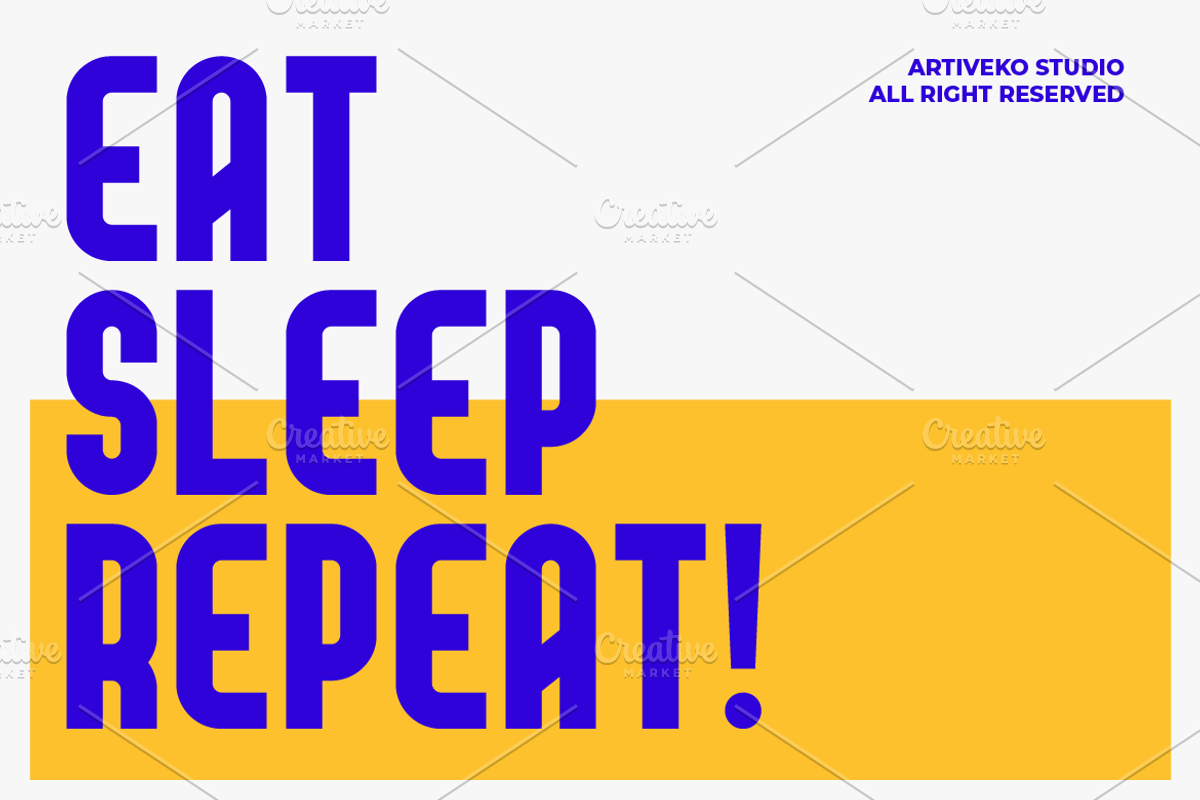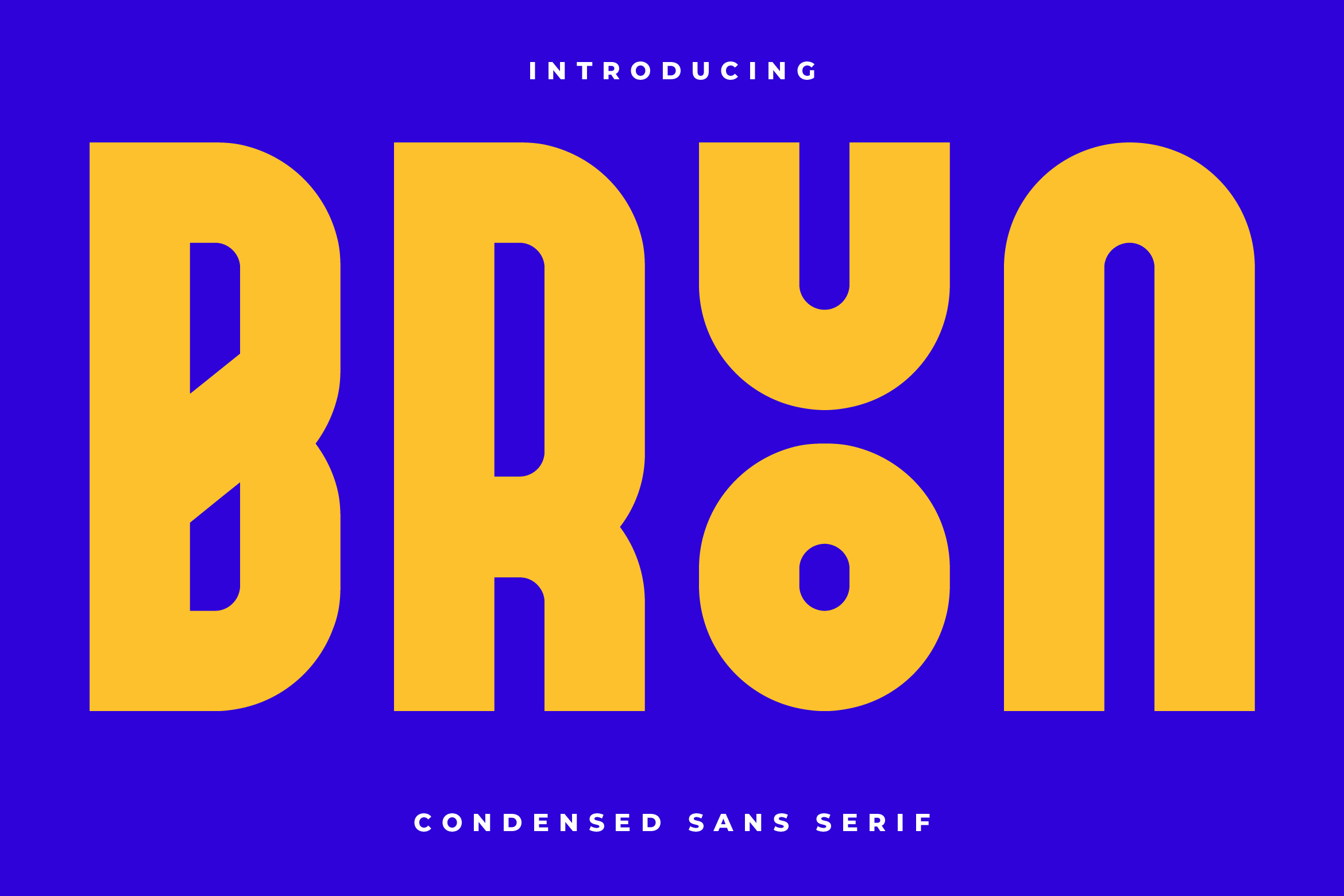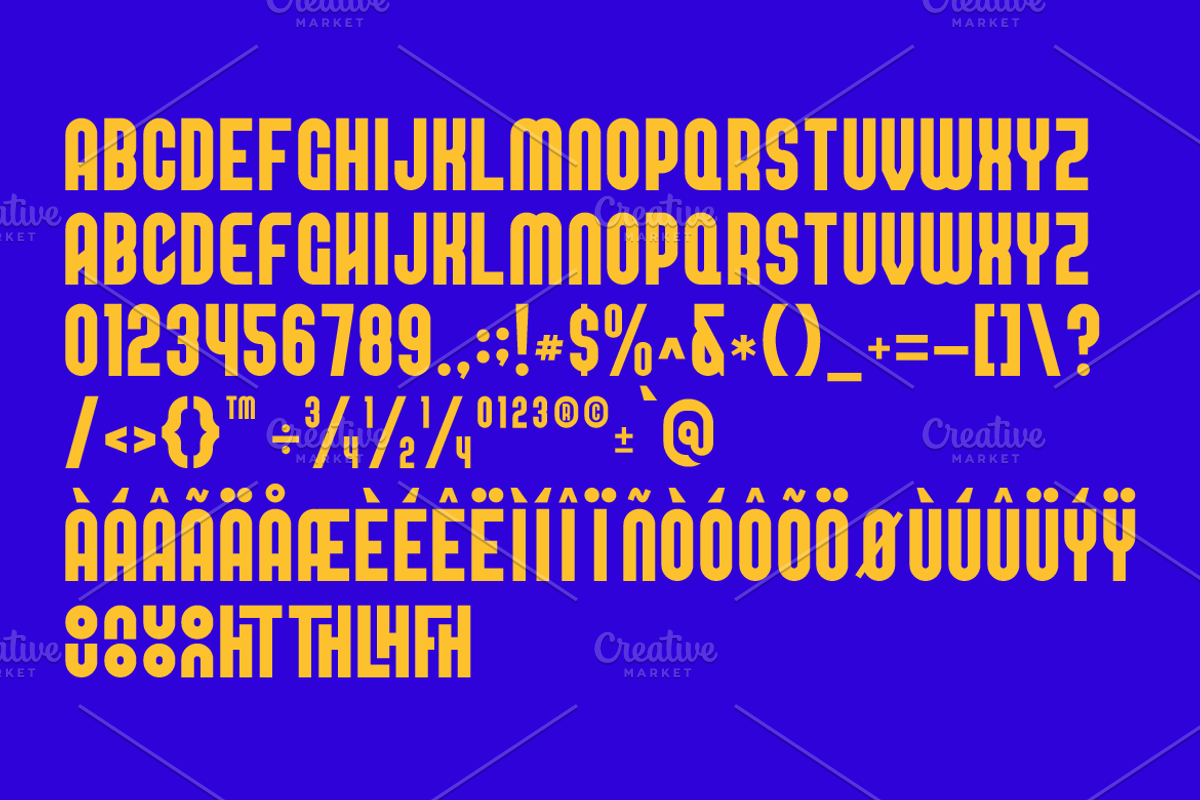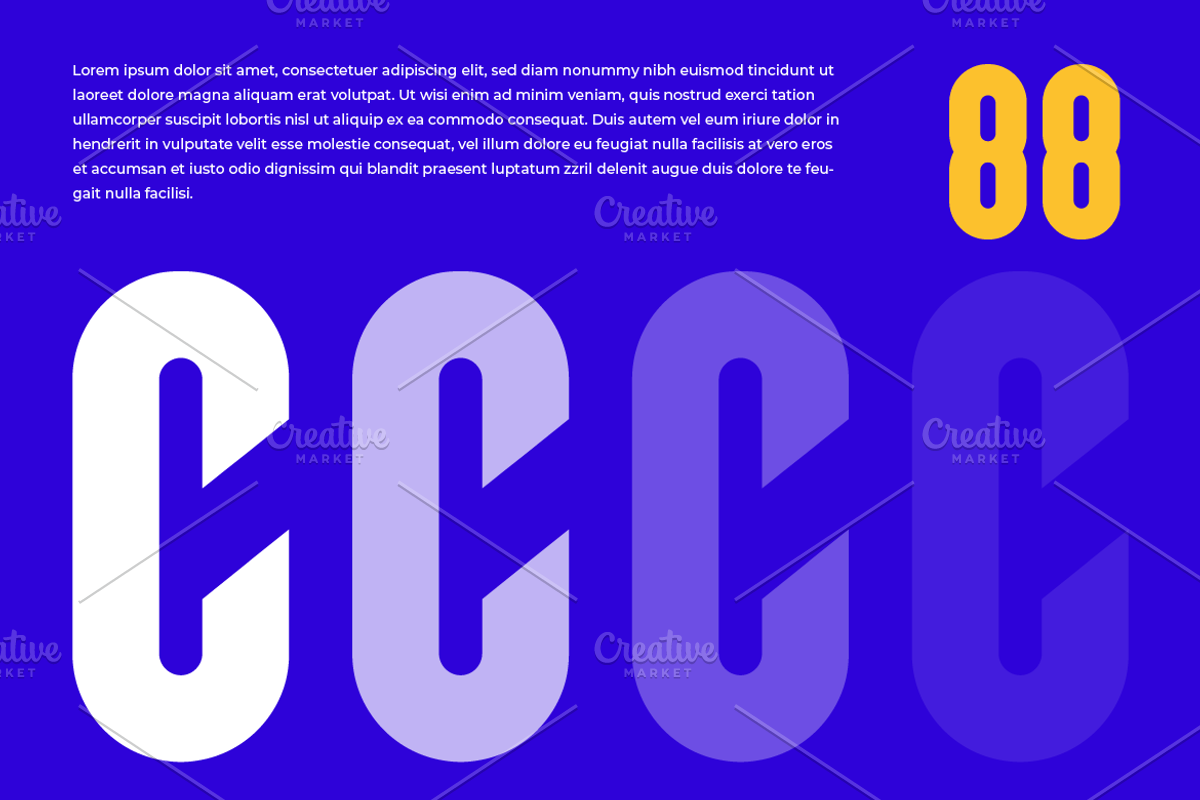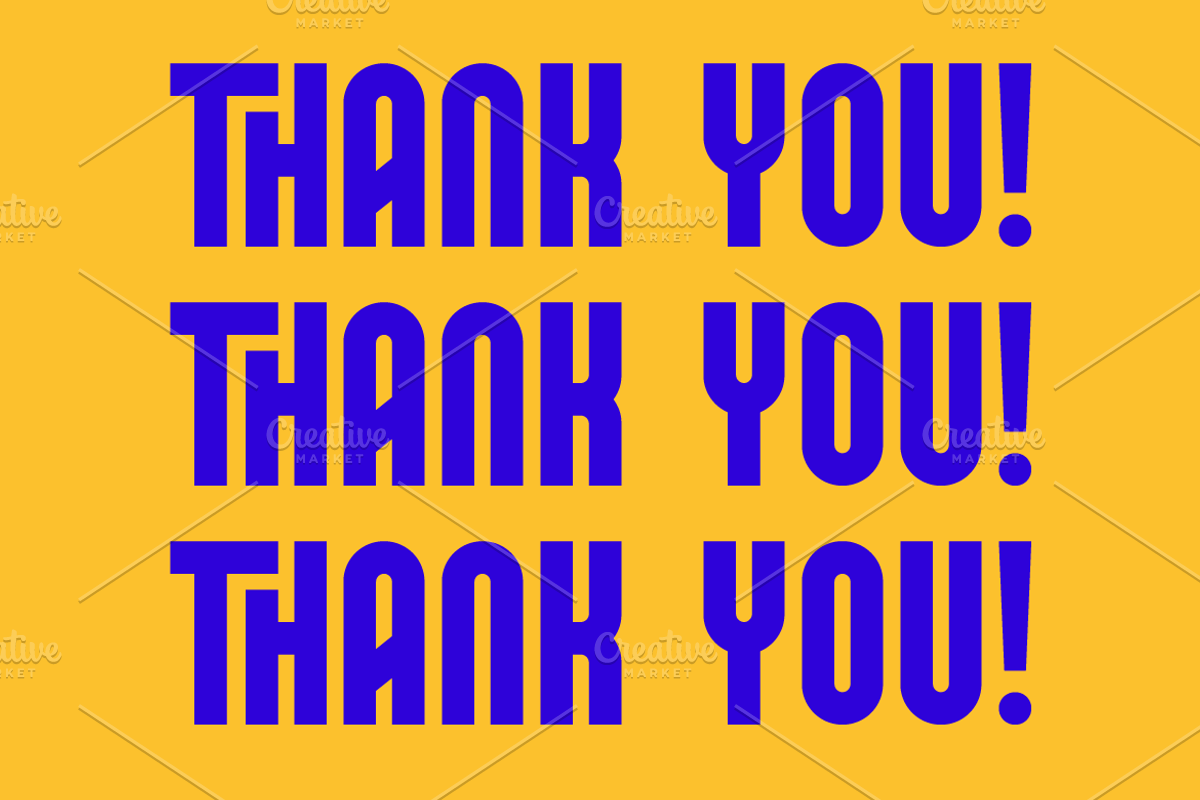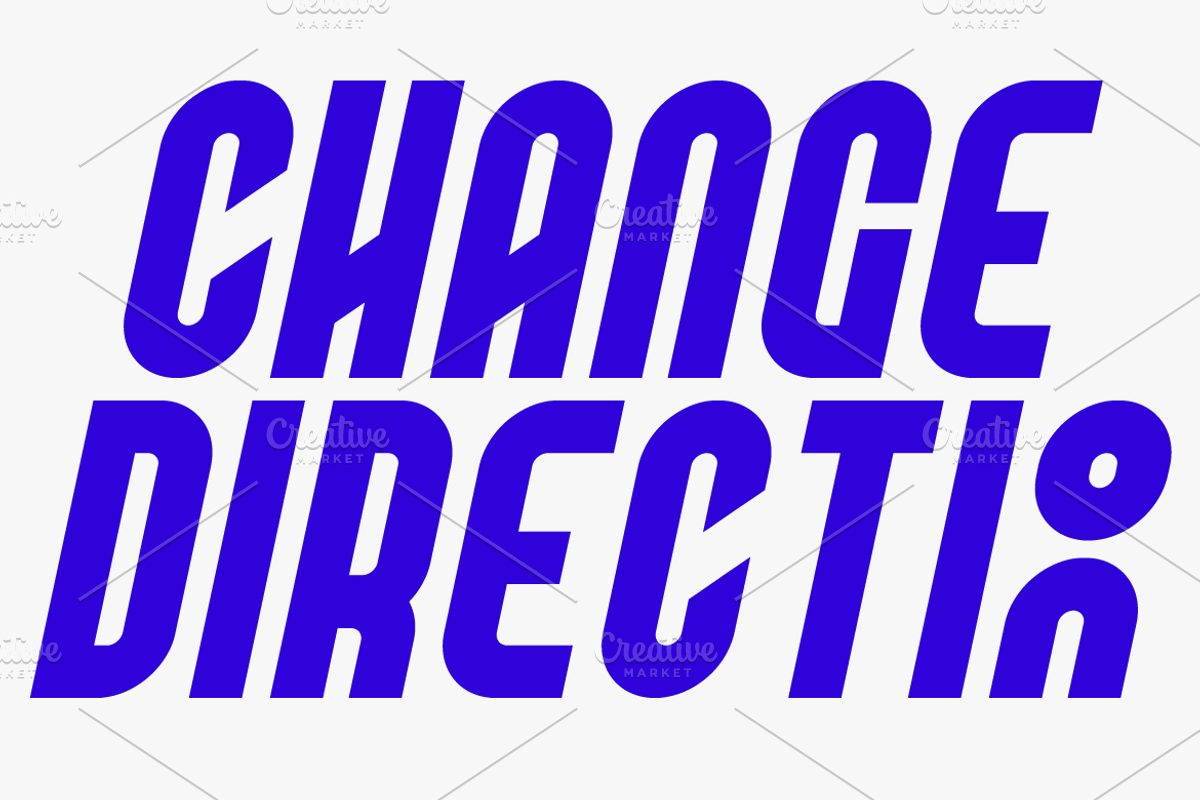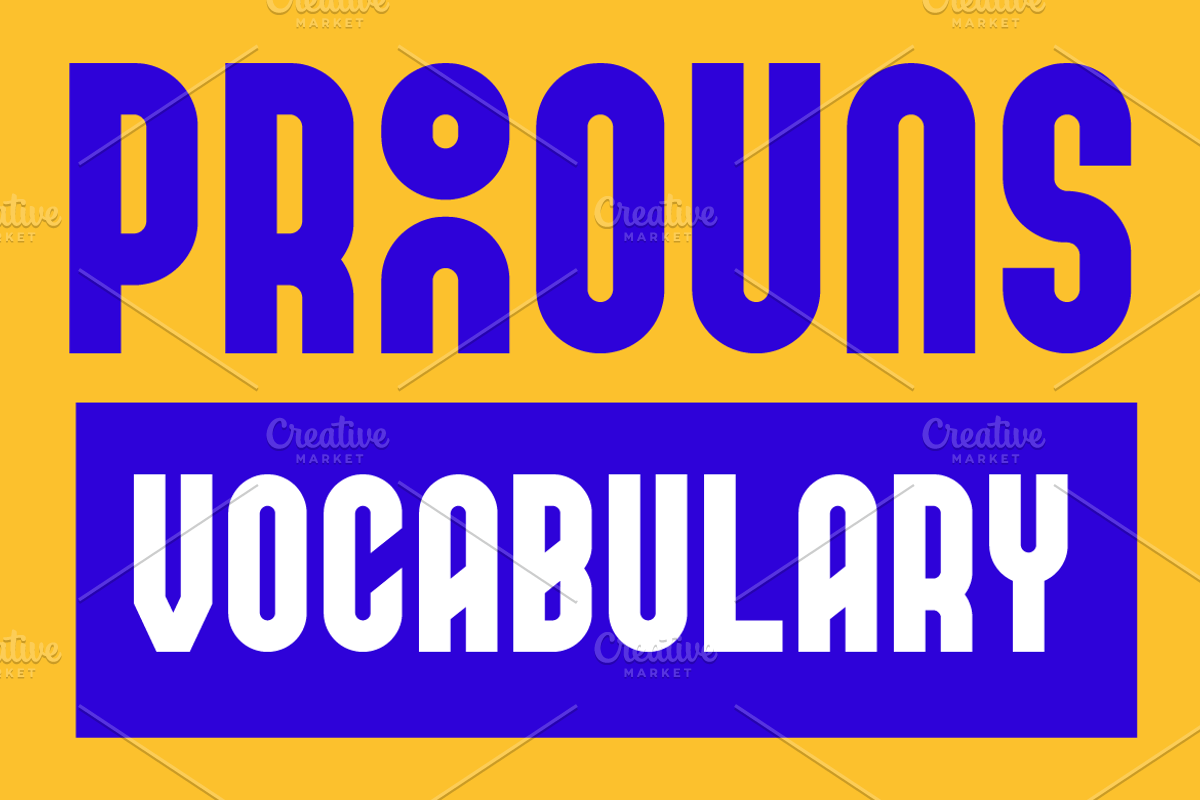
Bruon Condensed Sans Font
Bruon is a condensed creative sans serif font by Iwan Alwan, featuring narrow, stylish letterforms that combine modern design with artistic flair. Ideal for bold headlines, branding, and space-conscious layouts, Bruon adds a sleek and contemporary edge to any project. With multilingual support, ligatures, and alternates, Bruon offers both versatility and a unique visual appeal, making it perfect for designs that need a creative, compact, and cutting-edge touch.